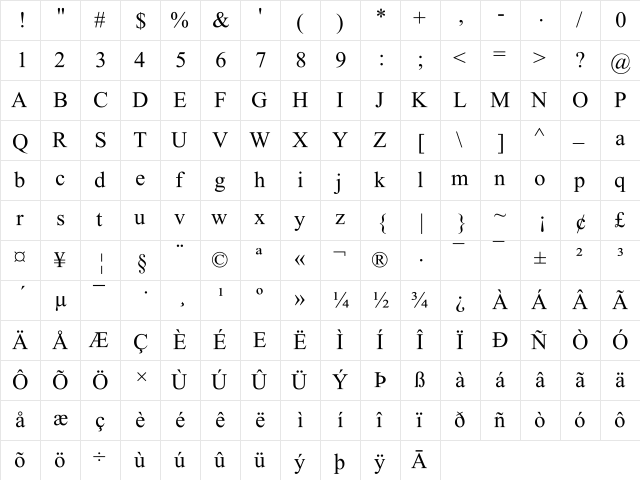
Ekushey Godhuli Normal
Design Context for Ekushey Godhuli Typeface
Ekushey Godhuli is a composed and adaptable typeface that performs quietly and consistently across a wide range of design contexts.